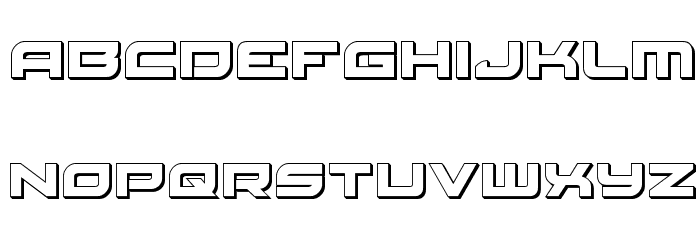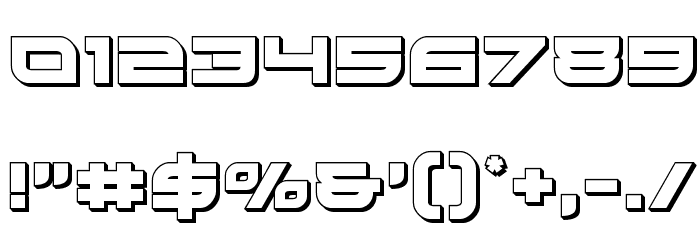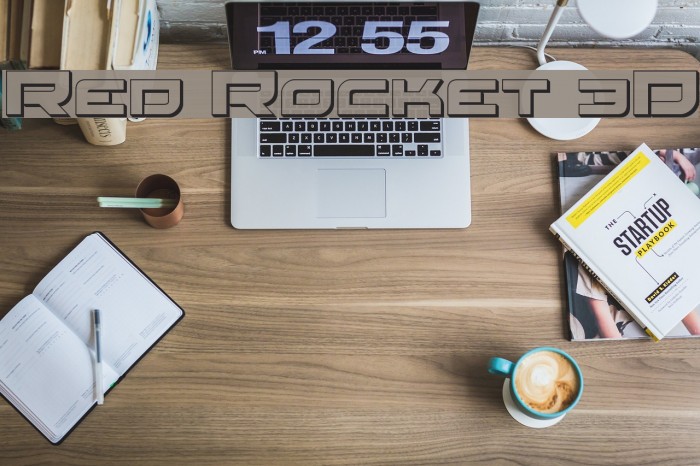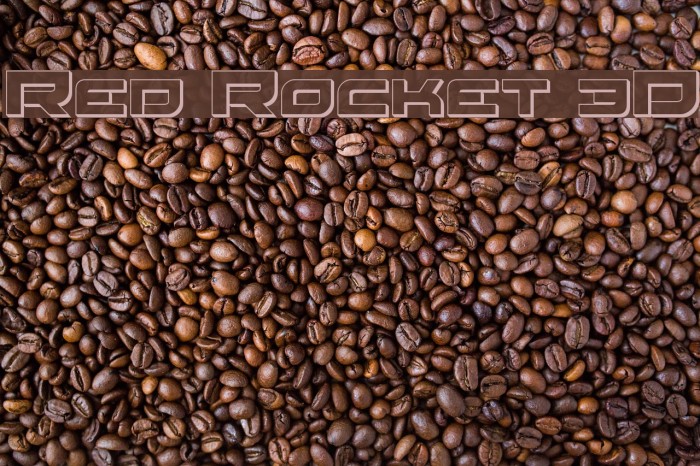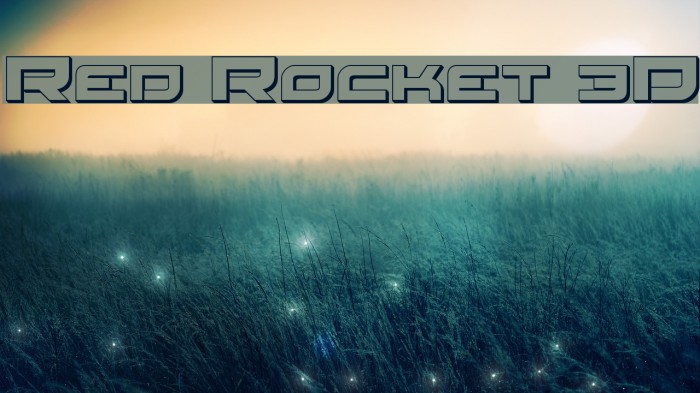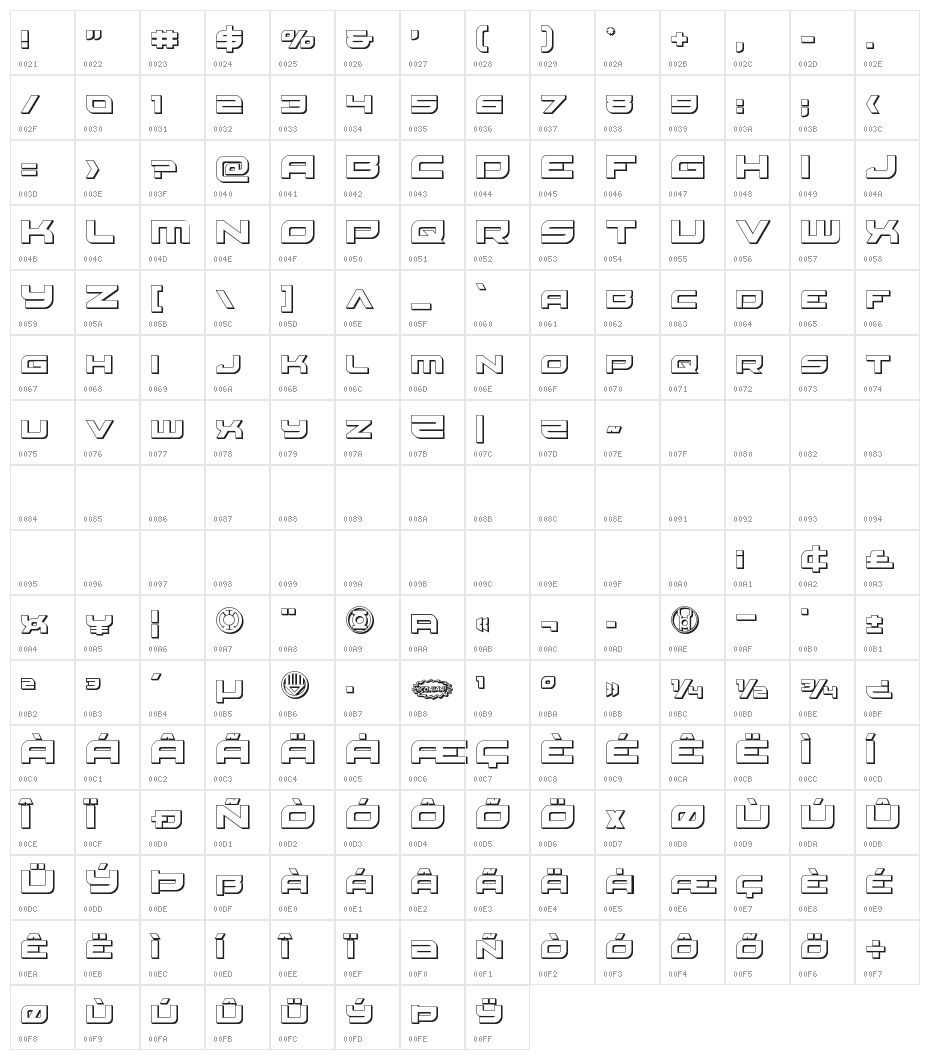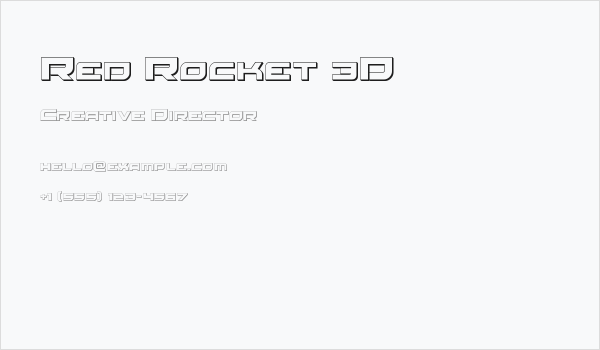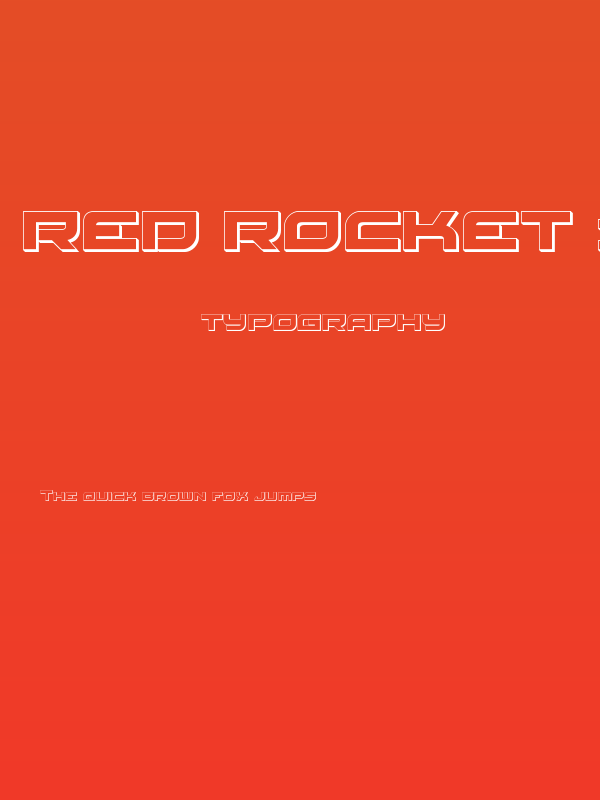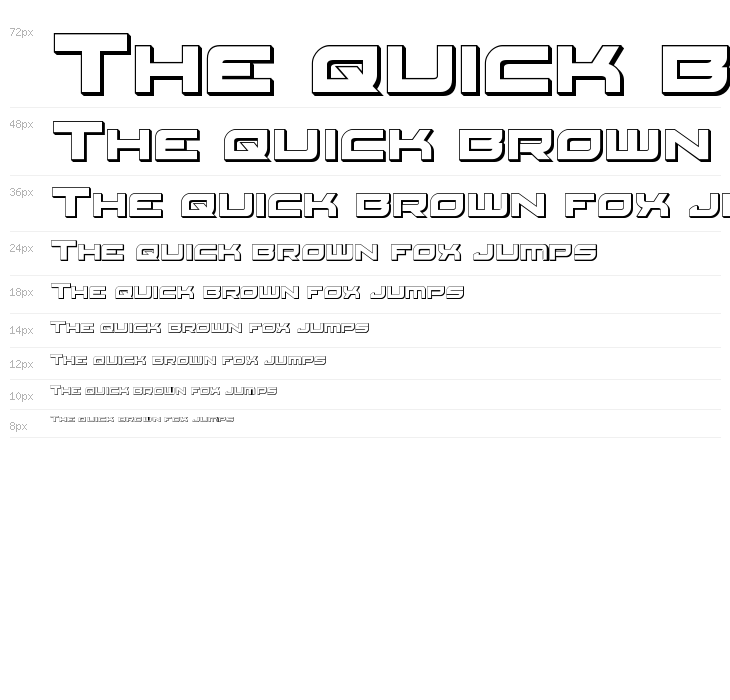
Red Rocket 3D Font
This font features a bold, geometric design with a three-dimensional effect that gives it a futuristic and dynamic appearance. The characters are outlined with a consistent stroke width, creating a hollow effect that enhances its modern aesthetic. The uppercase letters are uniformly structured, with sharp angles and clean lines, while the numerals and special characters maintain the same stylistic approach. This font is highly legible and visually striking, making it suitable for attention-grabbing designs.
A bold, geometric font with a 3D effect and modern aesthetic.
- Proposed Projects: Ideal for sci-fi themed projects, video game titles, tech branding, and futuristic posters.